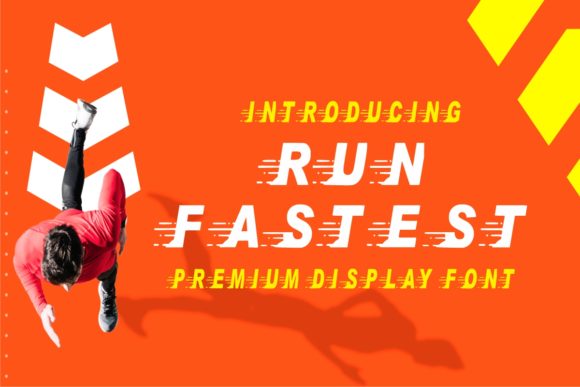
Welcome to the world of Run Fastest Font - a display font family that's not just a collection of letters, but an emblem of power and speed. Conceived by the creative minds at Im.design.art, Run Fastest is the perfect font for those seeking a visual representation of their indomitable spirit.
With its clean, modern lines and dynamic curves, Run Fastest captures the essence of forward momentum, urging you to break free from creative constraints and race towards your design dreams. It's a font that embodies the spirit of competition, of pushing boundaries and striving for excellence.
Imagine transforming your designs into a visual symphony of motion with Run Fastest. Its energetic rhythm and sleek design will add a touch of velocity to your logos, t-shirts, backgrounds, and any other creative endeavor you unleash it upon. Let the sharp angles and smooth contours of Run Fastest propel your designs to new heights.
Run Fastest is more than just a font - it's a declaration of your creative audacity. It's an invitation to tap into the boundless energy within, to let your imagination soar and leave a lasting impression on the visual world. It's the font that champions your boldness, your determination, and your unwavering pursuit of creative excellence.
So, unveil your inner speed demon and embrace the unyielding power of Run Fastest. Harness its dynamic energy to create designs that ignite, inspire, and leave an enduring legacy. It's time to let your creativity run wild and make a statement that reverberates with velocity and visual impact. The starting line is just a click away.